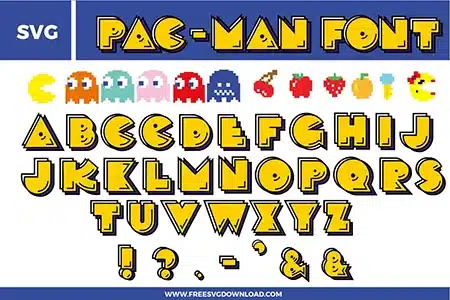
Pacman Font Free SVG File
This Pacman Font free svg files bundle features a retro arcade-style alphabet A-Z and punctuation marks in a vibrant yellow with black 3D shadow effects. The design includes iconic pixelated characters like Pac-Man, Ms. Pac-Man, and colorful ghosts in red, pink, teal, and orange, alongside classic pixel fruit icons like cherries, strawberries, and oranges for high-quality gaming-themed digital crafts.
• Pacman Font SVG: Full alphabet font preview in bright yellow arcade-style letters with thick black outlines, dark blue shadow offsets, angular geometric shapes, and Pac-Man-inspired face details built into several characters, alongside matching punctuation and ampersand symbols.